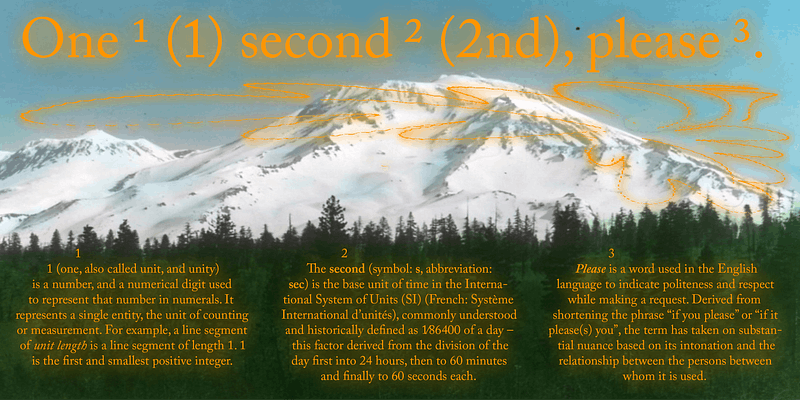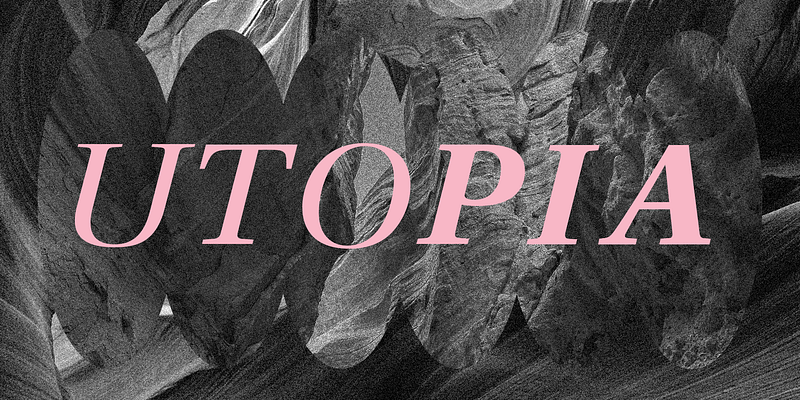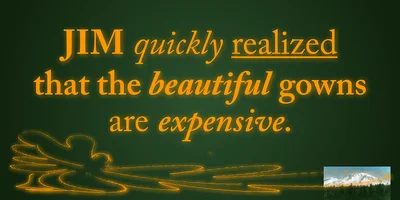
Caslon vs Utopia
Caslon and Utopia are both serif typefaces sharing a readable foundation. Where Caslon leans old style, Utopia brings transitional, elegant. Compare which suits your Editorial project.
Design overlap:40%
Recommended: Caslon
- old style design character
- Suited for Book Design and Corporate
Consider: Utopia
- transitional, elegant design character
- Suited for Books and Print